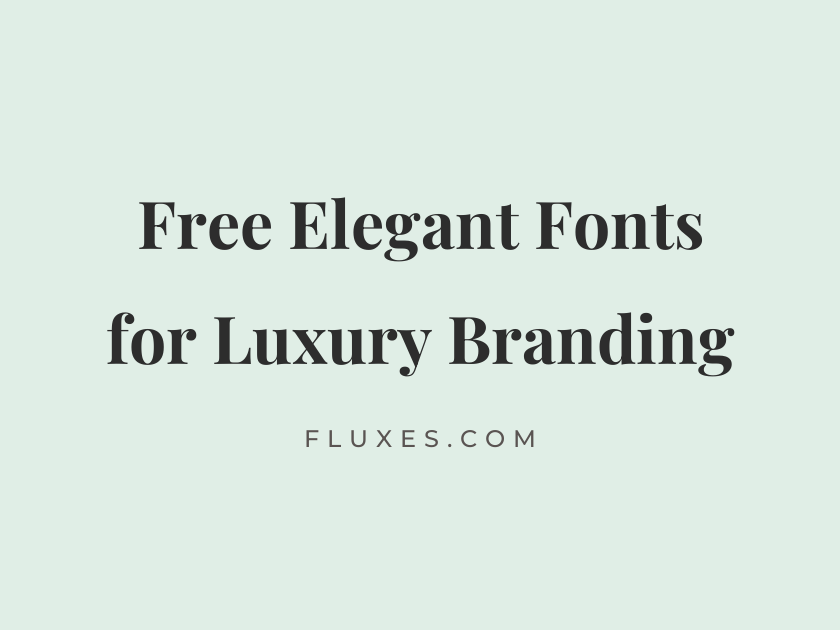
62 Best Free Elegant Fonts for Luxury Branding
Luxury branding lives or dies on typographic detail. A single letterform can signal heritage or novelty, restraint or excess, and the right typeface often does more work than the logo mark itself. The good news for designers on a budget is that some of the most sophisticated, editorial-grade serifs, scripts, and refined sans-serifs are available as free Google Fonts, ready to license for packaging, hotel signage, fashion lookbooks, or a fragrance label without a single dollar spent on type. These are the faces that consistently show up in high-end brand identity work, chosen for their contrast, their proportions, and the quiet confidence they bring to a wordmark.
What follows is a wide-ranging survey of free elegant fonts suited to premium and luxury branding, from hairline didones to hand-lettered scripts to the kind of restrained sans-serifs that fashion houses favor for minimal, modern identities.
1. Playfair Display
Playfair Display is the reigning workhorse of luxury branding on Google Fonts, and for good reason. Its dramatic contrast between thick stems and hairline serifs gives it the crisp, editorial glamour of a magazine masthead, which is exactly why it turns up on everything from champagne labels to boutique hotel signage.
It reads beautifully at large display sizes but can feel a touch heavy in long paragraphs, so most luxury identities reserve it for headlines and pair it with a plainer serif or sans for body copy.
2. Cormorant Garamond
Cormorant Garamond takes the humanist warmth of old-style Garamond and stretches it tall and slender, producing a face that feels like it belongs on a couture invitation. The letterforms are delicate almost to a fault; at small sizes they can lose crispness, so it earns its keep as a headline or subhead font rather than body text.
Designers reach for it when a brand wants elegance without the coldness of a strict didone, something closer to hand-set letterpress than a fashion magazine cover.
3. Cormorant
The full Cormorant family widens the range of its Garamond sibling with additional optical styles, giving art directors more control over texture across a brand system. It carries the same aristocratic thinness, best suited to generous letter spacing and plenty of white space.
4. EB Garamond
Few free fonts carry as much scholarly pedigree as EB Garamond, a careful digital revival of Claude Garamont’s sixteenth-century punches. It has an old-world literary calm that suits heritage brands, private members’ clubs, and anything wanting to suggest longevity rather than trend-chasing.
Its x-height is modest and its color on the page is light, so it wants generous line spacing and a fairly large point size to sing. Pair it with a script or a heavier display serif for contrast in a logotype, and let it carry body copy in annual reports or brand books.
It is one of the most versatile choices here precisely because it never shouts, letting packaging, photography, and materials do the louder talking.
5. Libre Baskerville
Libre Baskerville is a workhorse alternative to Baskerville built with screen legibility in mind, sturdier and slightly larger in x-height than the classic metal original. It brings a dependable, well-bred formality to editorial-style luxury sites and long-form brand storytelling.
6. Libre Caslon Text
Caslon has dressed everything from the American Declaration of Independence to countless British institutions, and this free interpretation keeps that unhurried, trustworthy character intact. It is a safe, handsome choice wherever a brand wants gravitas without ostentation.
7. Bodoni Moda
If Playfair Display is luxury’s favorite showman, Bodoni Moda is its more severe European cousin. The razor-thin hairlines and vertical stress are pure Italian fashion-house typography, evoking Vogue mastheads and perfume bottles in equal measure.
It is unapologetically high-contrast, which means it can look brittle or muddy at small sizes on screen; reserve it for logotypes, headlines, and large-format print where its precision has room to breathe.
8. Abril Fatface
Abril Fatface brings theatrical weight and swagger, a fatface didone built for impact rather than subtlety. It works best in short bursts, a single word on a jewelry box or the numerals on a hotel room key, where its heaviness reads as confidence rather than clutter.
9. Prata
Prata has a restrained, formal elegance that sits between a serious text serif and a display face, making it a favorite for upscale real estate and finance branding that wants polish without flash.
10. Italiana
Italiana lives up to its name with narrow, refined proportions reminiscent of engraved stationery. Its restrained curves and tall ascenders give it a quiet luxury feel that works especially well in all caps for a minimalist wordmark.
If the brand needs to feel more current than classical, pair a light-weight sans like Jost or Raleway with a single elegant serif accent rather than reaching for a script at all.
Always test any of these Google Fonts at the actual sizes they will be used, on packaging, business cards, and mobile screens, since a face that looks stunning at 80 points can turn muddy or illegible at 12.
Free does not mean generic. Careful pairing, generous spacing, and restraint in how many of these faces you combine will do more for a luxury brand’s perceived value than any paid alternative.